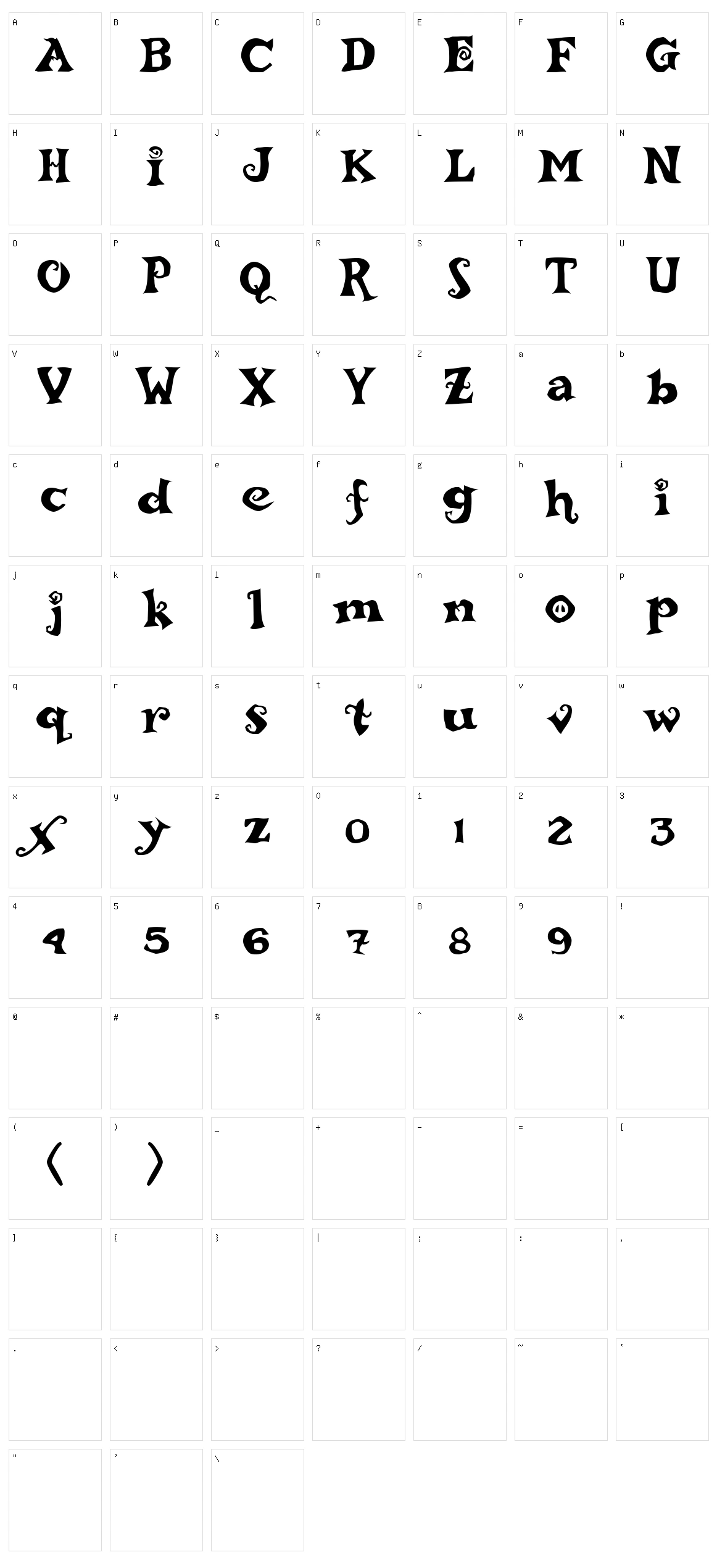
ReBucked
I was inspired by Chank Diesel, who told everyone how he stole his own font. I decided to try it, so of course I picked one of his. I went through all of his commercial fonts until I found one that had a clear picture of all the letters and numerals (BucketHead). I also tried to put in some of the punctuation, but it didn't cooperate very well.
ReBucked is the end result.